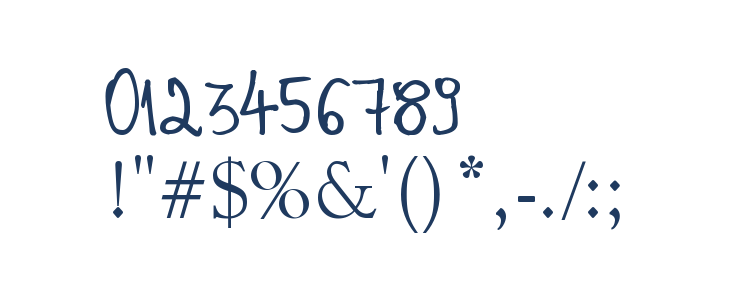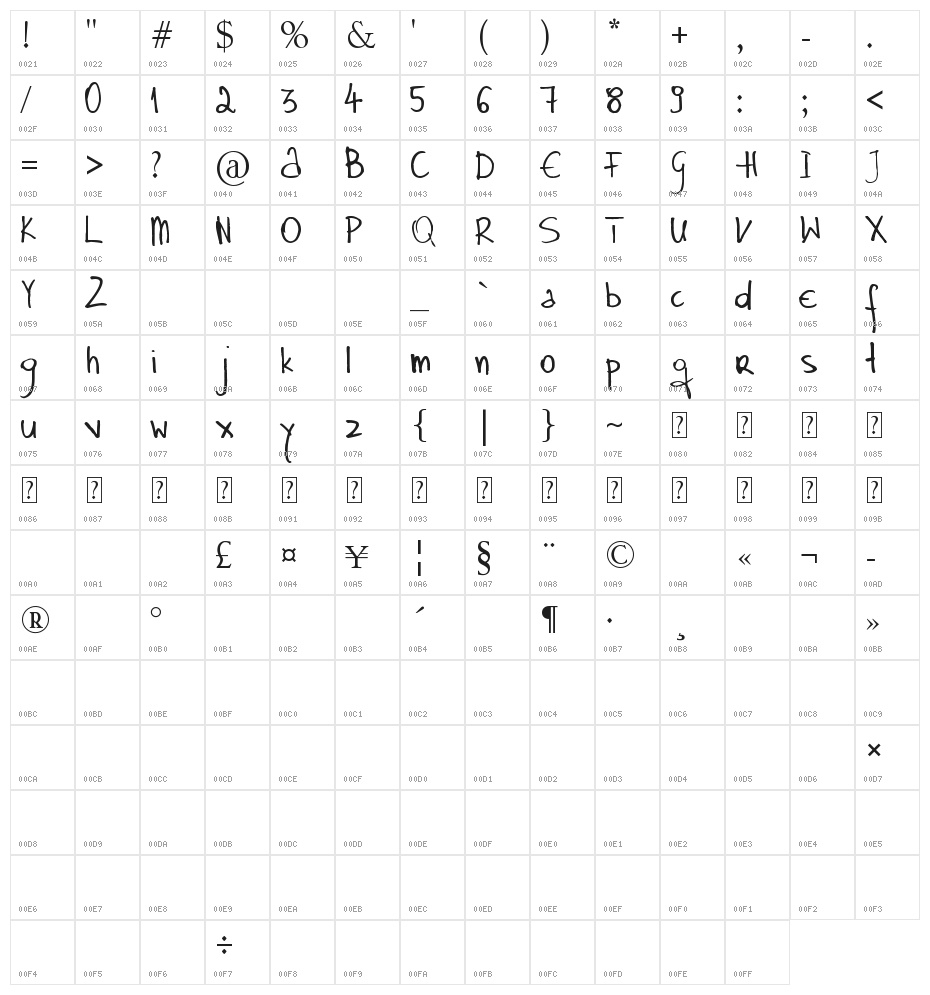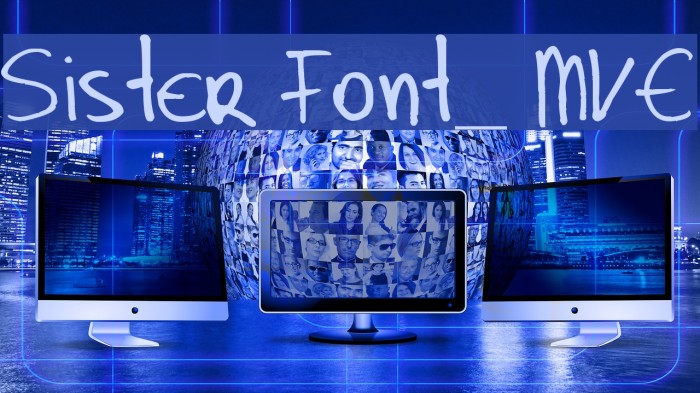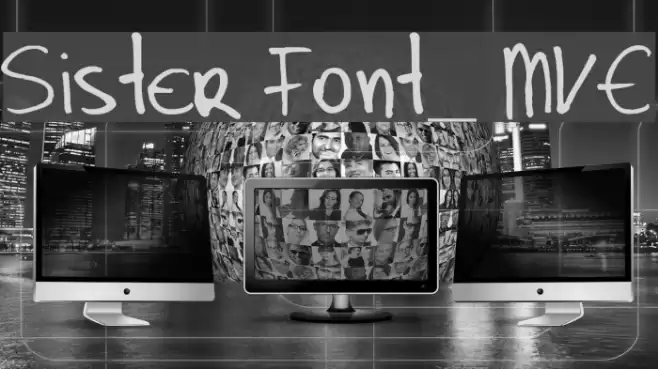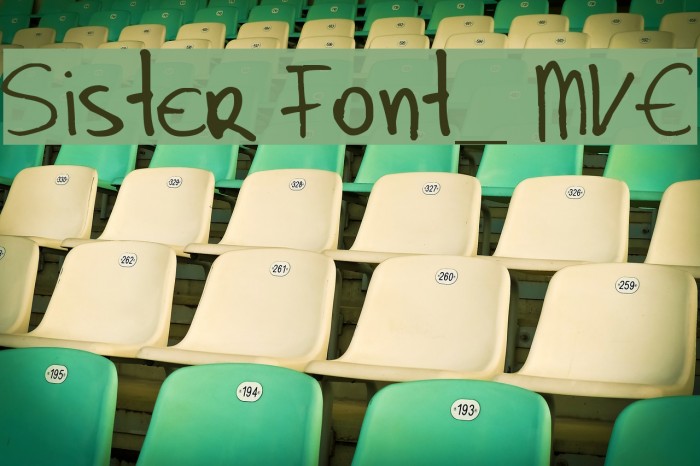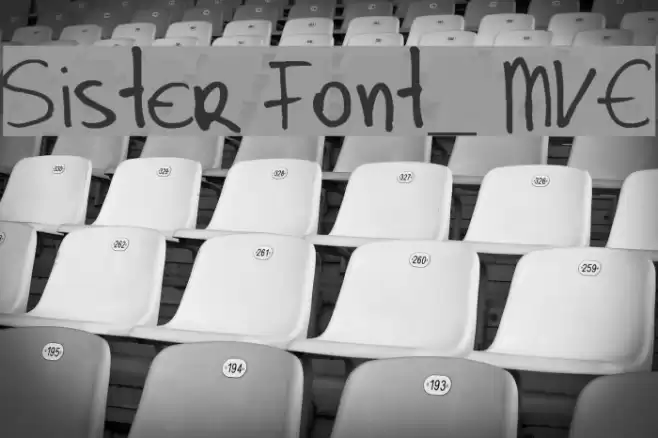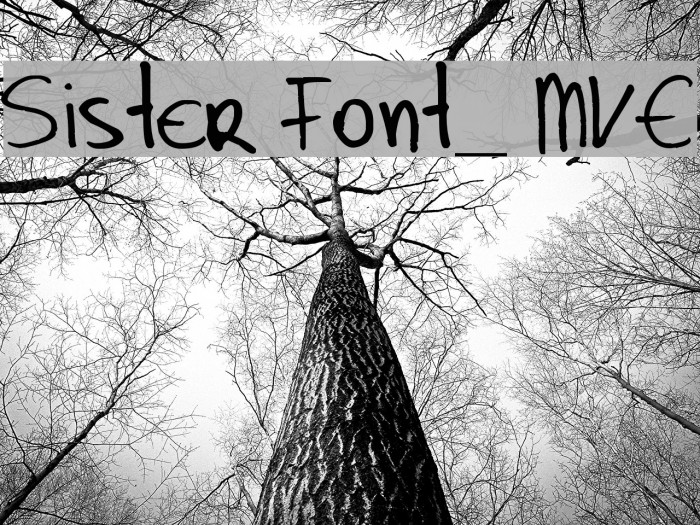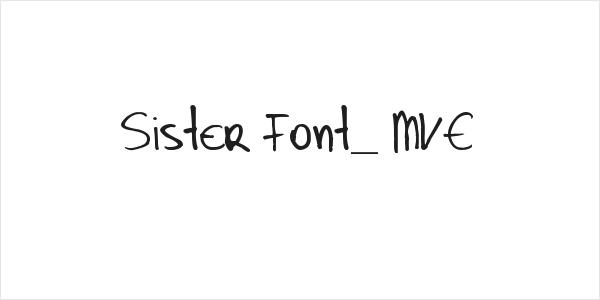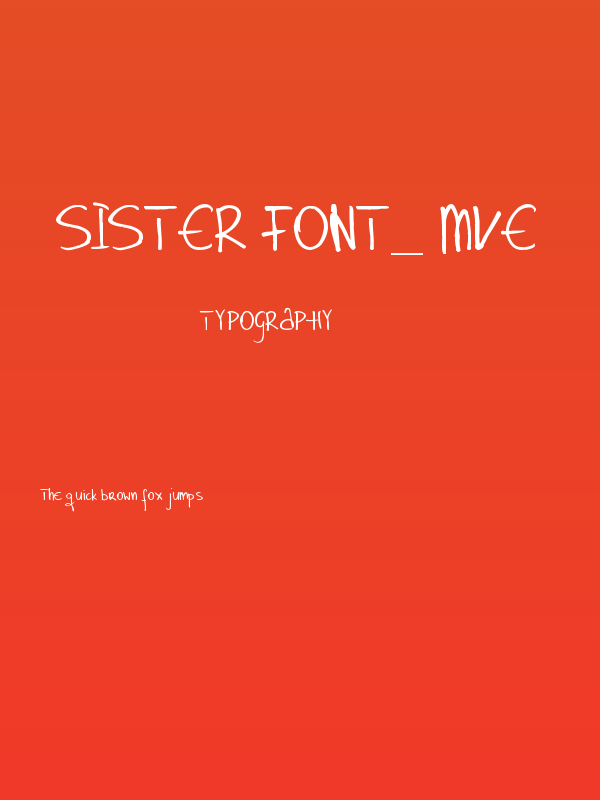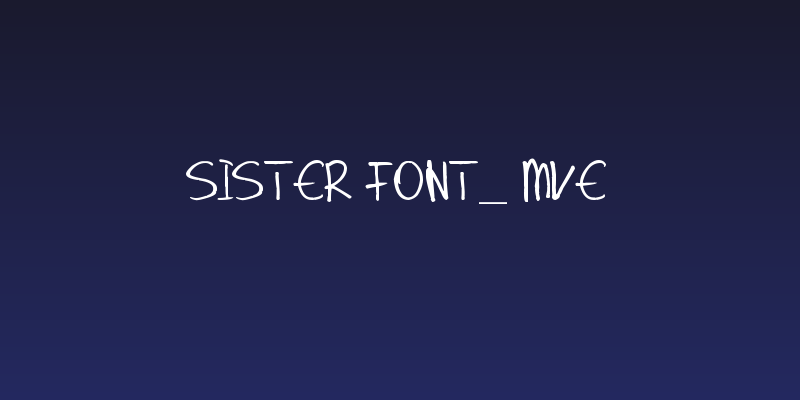
This font features a playful, handwritten style with a casual and informal appearance. The letters are slightly irregular, giving it a personal and human touch. The strokes vary in thickness, adding to the dynamic and lively feel of the typeface. It includes both uppercase and lowercase letters, numbers, and a variety of special characters. The overall look is reminiscent of a child's handwriting or a casual note, making it suitable for projects that require a friendly and approachable aesthetic.
| Proposed Projects | Ideal for greeting cards, children's books, casual invitations, and playful branding. |